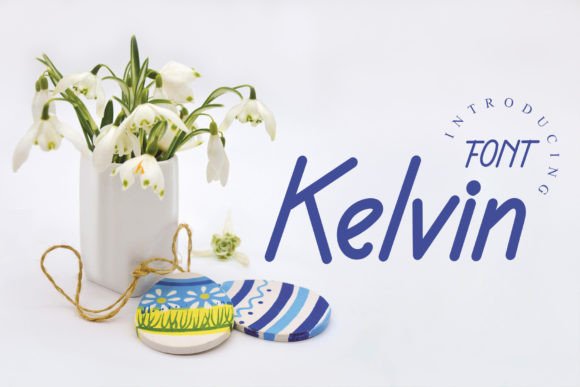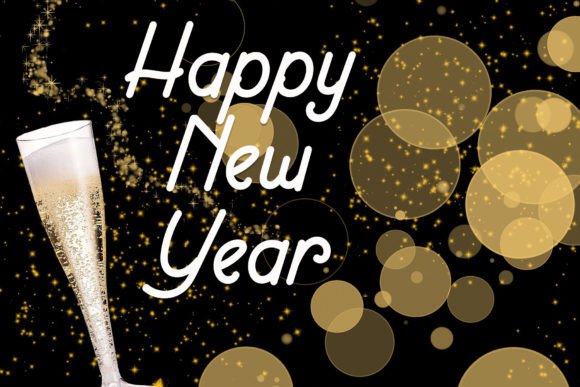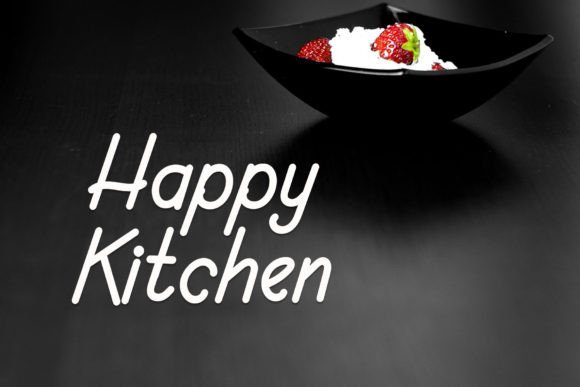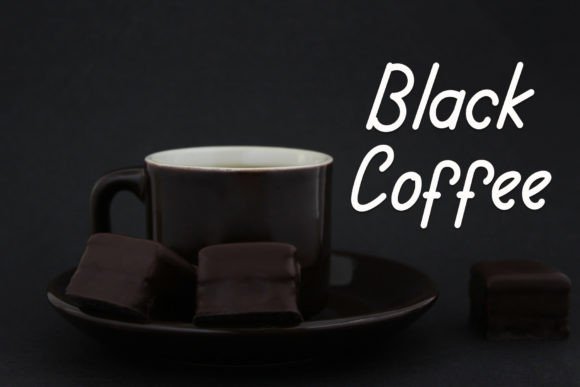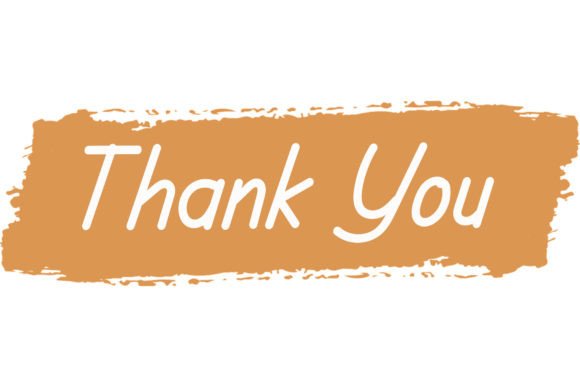
Kelvin Font
A Beautiful Handwritten Font with Elegant Appeal
Kelvin Font is a beautiful handwritten typeface designed to bring an elegant, personalized touch to your designs. Its carefully crafted strokes and varied baseline make it perfect for a wide range of creative projects. Whether you’re designing wedding invitations, greeting cards, or logos, this font adds a unique and timeless feel to your work, ensuring that your designs stand out with sophistication and style.
Perfect for Wedding Invitations and Special Occasions
For wedding invitations and special occasion stationery, the Kelvin Font is an excellent choice. Whether you’re designing save-the-dates, thank-you cards, or event programs, this font adds a romantic, elegant touch to your designs. Its handwritten appeal brings a personalized and charming vibe to your invitations, making them feel intimate and memorable. The Kelvin Font ensures that your special occasions are celebrated in style, leaving a lasting impression on your guests.
Ideal for Logos and Branding Projects
For logos and branding, the Kelvin Font provides a unique handwritten style that adds a personal and refined element to your business identity. Whether you’re designing a luxury brand logo, personalized business cards, or branding materials, this font gives your designs a distinctive look that stands out. Its fluid design and beautiful glyphs ensure that your logo or business materials reflect both creativity and professionalism. Whether you’re in the fashion, artisanal, or creative industries, the Kelvin Font is the perfect choice for creating a memorable and charming brand identity.
Great for Greeting Cards and Invitations
For greeting cards and invitations, the Kelvin Font adds a timeless and elegant style to your projects. Whether you’re creating birthday cards, holiday greetings, or party invitations, this font brings a personal and romantic touch to your designs. Its handwritten script ensures that your cards and invitations are both elegant and approachable, perfect for all kinds of celebratory events and special occasions.
Ideal for Billboards and Advertisements
For billboards and advertisements, the Kelvin Font offers a beautiful handwritten style that ensures your message grabs attention. Whether you’re creating outdoor ads, event promotions, or storefront signage, this font ensures your text is both eye-catching and elegant. Its smooth strokes and varied baseline give your advertisements a memorable and unique appearance, making it ideal for creating promotional materials that stand out in a crowded space.
Versatile and Legible
Despite its elegant handwritten style, the Kelvin Font is legible and easy to use. Its consistent design ensures that your text remains clear and readable, even for longer passages or smaller sizes. Whether you’re using it for headlines, captions, or body text, this font strikes the perfect balance of creativity and readability, making it suitable for a wide variety of design applications, from print to digital media.
The Kelvin Font is easy to use and integrates smoothly into most design software. Whether you’re working on logos, wedding invitations, greeting cards, or business cards, this font ensures your designs look polished and professional while maintaining a personalized touch. Its versatility makes it perfect for both print and digital media, allowing you to use it across various projects with ease.
Add Elegance and Charm to Your Designs with Kelvin Font
If you’re looking for a beautiful handwritten font that adds an elegant, personalized touch to your designs, the Kelvin Font is the perfect choice. Whether you’re designing wedding invitations, logos, greeting cards, or advertisements, this font brings a timeless, sophisticated feel to your work. Let the Kelvin Font help you create memorable, creative designs that leave a lasting impression.